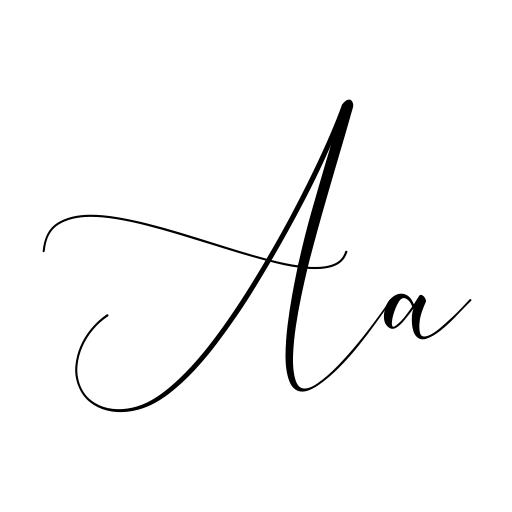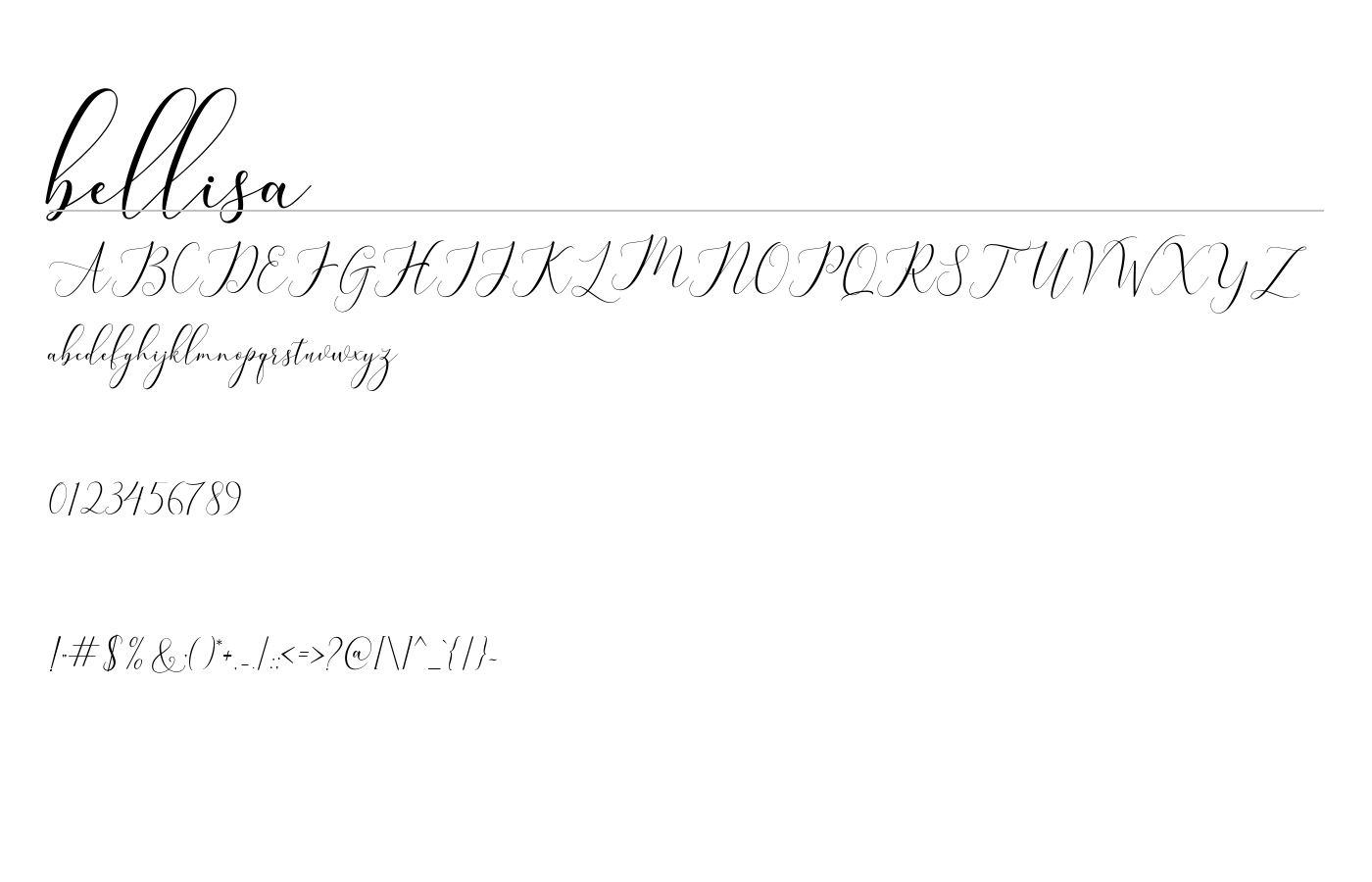
Bellisa is an elegant, delicate script font with fine strokes and graceful swashes that give it a refined, sophisticated feel. Its slender, flowing letterforms create a sense of luxury and femininity, making it ideal for wedding invitations, branding, and upscale editorial projects where a touch of romance and elegance is desired.
About bellisa Font